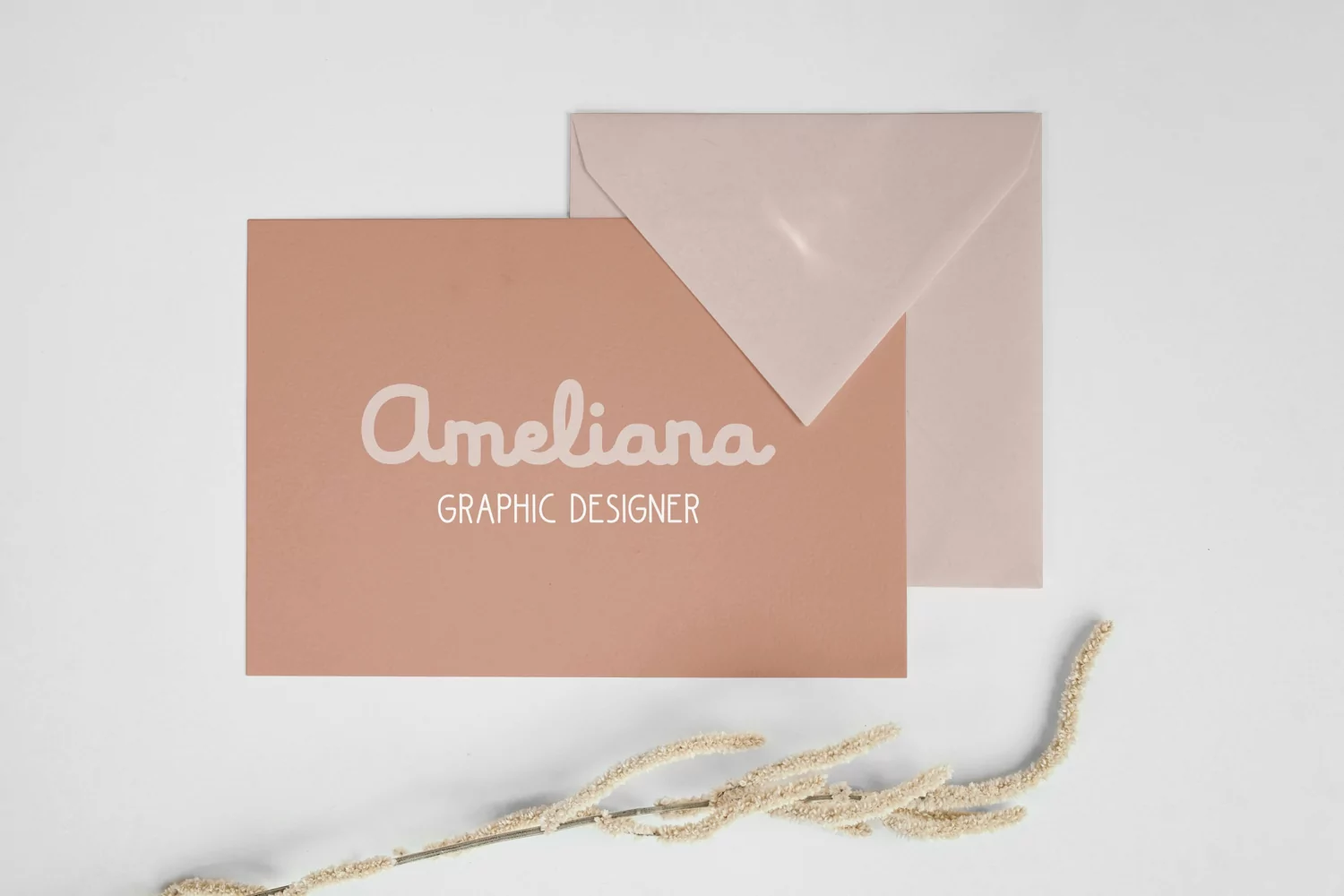
Haseera Font Duo - Bold Monoline Script & All Cap Sans Serif
Haseera is a simple yet sweet font duo. It consists of a bold monoline script font and a thin all-ca…